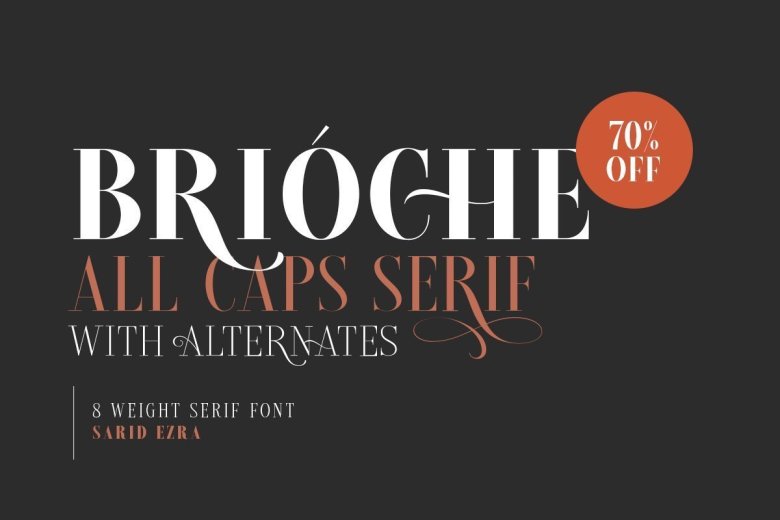
Brioche Font
Brioche Serif Font – new modern ligature serif font. Inspired by classical serif font and luxury typography. It’s designed and shared by saridezra. This font is an incredibly elegant and delicate serif font. It can easily be matched to an incredibly large set of projects, so add it to your creative ideas and notice how it makes them stand out!